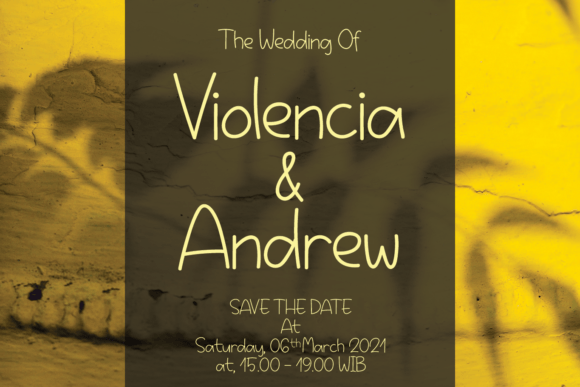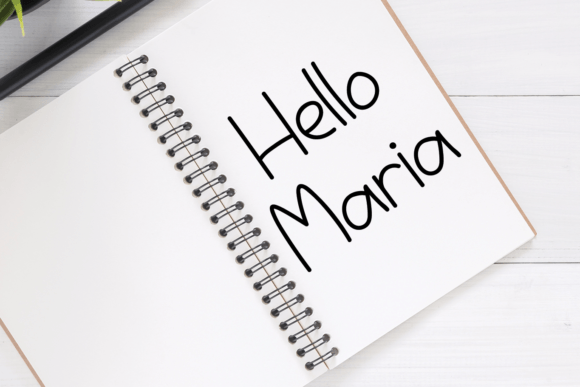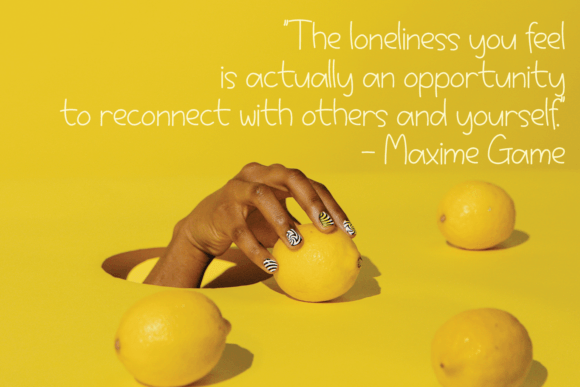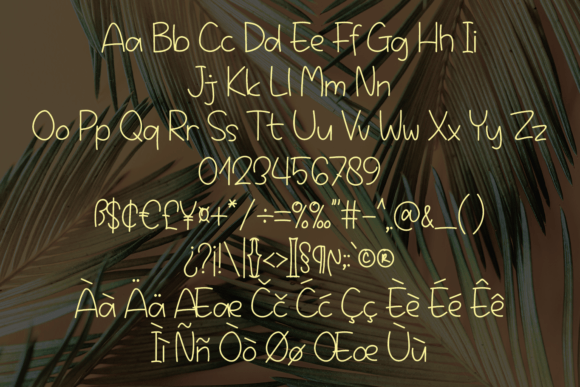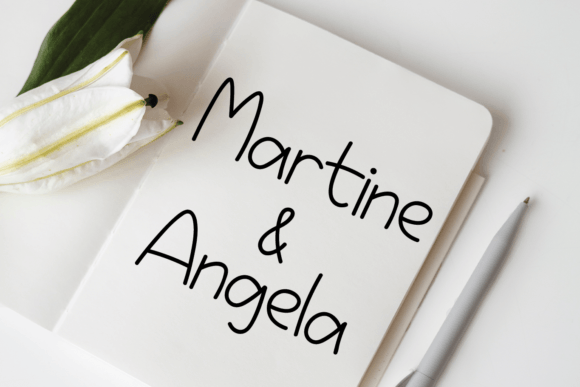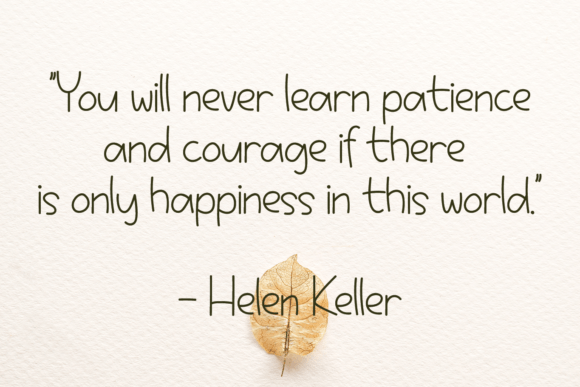
Introduction to Fresh Yellow Font
Remember that moment when you’re working on a creative project and you just can’t seem to find the perfect font to bring it all together? You scroll through design resources, searching for that one elusive element that will make your design pop. For many designers, that perfect font is Fresh Yellow Font – a classic handwritten font that’s guaranteed to add a sweet touch to any design.
Whether you’re working on a greeting card, a kids’ craft, or any other creative project, Fresh Yellow Font is a valuable resource that’s sure to deliver. With its high quality design and transparent background, this versatile script font is perfect for designers looking to add a personal touch to their work. And the best part? It’s available for free download, making it an accessible design resource for anyone looking to elevate their creative game.
Key Features of Fresh Yellow Font
- High-quality design resource with a modern and vibrant aesthetic, perfect for creative projects.
- Includes 12 unique characters, including uppercase and lowercase letters, numbers, and special characters.
- Perfect for use in digital design, print materials, and web applications, including logos, headings, and body text.
Honest Review: Fresh Yellow Font
I recently came across the Fresh Yellow Font, and I’m excited to share my thoughts on this design resource. As a designer, I’m always on the lookout for high-quality fonts that can elevate my creative projects. In this review, I’ll break down what works well and any limitations I’ve encountered.
What works well: ✨ The Fresh Yellow Font is incredibly versatile and can be used for a wide range of design projects, from logos to social media graphics. The font is also available for free download, which is a major bonus for designers on a budget. Additionally, the font has a transparent background, making it easy to customize and combine with other design elements.
- Key Features: High-quality design, transparent background, versatile use
- Pros: Free download, easy to customize
- Cons: Limited style options
While the Fresh Yellow Font is a great addition to any designer’s toolkit, I do have a few reservations. ⚠️ The font is relatively simple and lacks the sophistication of more premium options. Additionally, the limited style options may not be suitable for designers who require more versatility in their font choices.
Overall, I’m impressed with the Fresh Yellow Font, and I think it’s a great resource for designers working on a budget or who need a simple, high-quality font for their creative projects. While it may not be the most sophisticated option, it’s definitely worth considering for your next design project.
Common Use Cases for Fresh Yellow Font
The Fresh Yellow Font is ideal for a variety of creative projects, including:
- Graphic design projects